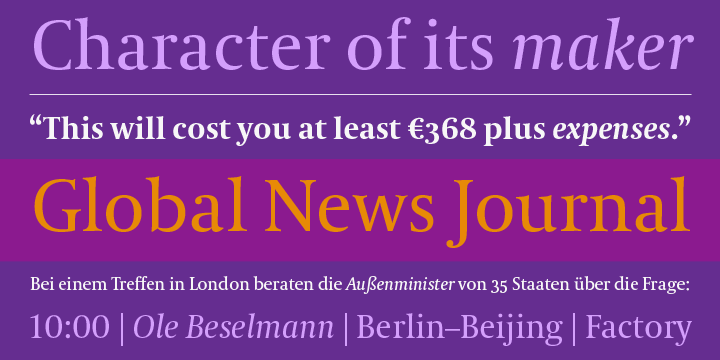
Coranto 2 Font is ideal for book publishing, literary magazines, academic journals, newspaper typography, editorial design, scholarly publications, and extended reading materials. This refined typeface excels in applications requiring superior readability and typographic elegance.
Coranto 2 Font is exciting because it represents the evolution of classical text typography with enhanced readability features and refined character details that improve reading comfort while maintaining the timeless elegance of traditional serif design principles.
The Coranto 2 Font family includes Roman and Italic styles in multiple weights, each optimized for different text sizes and reading conditions. This comprehensive collection provides publishers and designers with complete solutions for professional text typography requirements.
Coranto 2 Font Free Download provides access to an expertly refined serif typeface that exemplifies the highest standards of text typography design. This sophisticated font features carefully engineered letterforms with optimal proportions and spacing that ensure exceptional readability in extended text applications. The typeface showcases subtle improvements over traditional designs, with enhanced character clarity and refined details that reduce reading fatigue while maintaining classical typographic beauty. Its scholarly character makes it particularly suitable for academic publications and literary works where reading comfort and typographic distinction are essential. Coranto 2 Font delivers consistent performance across various publishing applications, from intimate book design to large-format periodicals. The font's classical heritage and modern refinements ensure professional results that honor traditional typography while meeting contemporary reading standards and expectations for sustained text engagement.